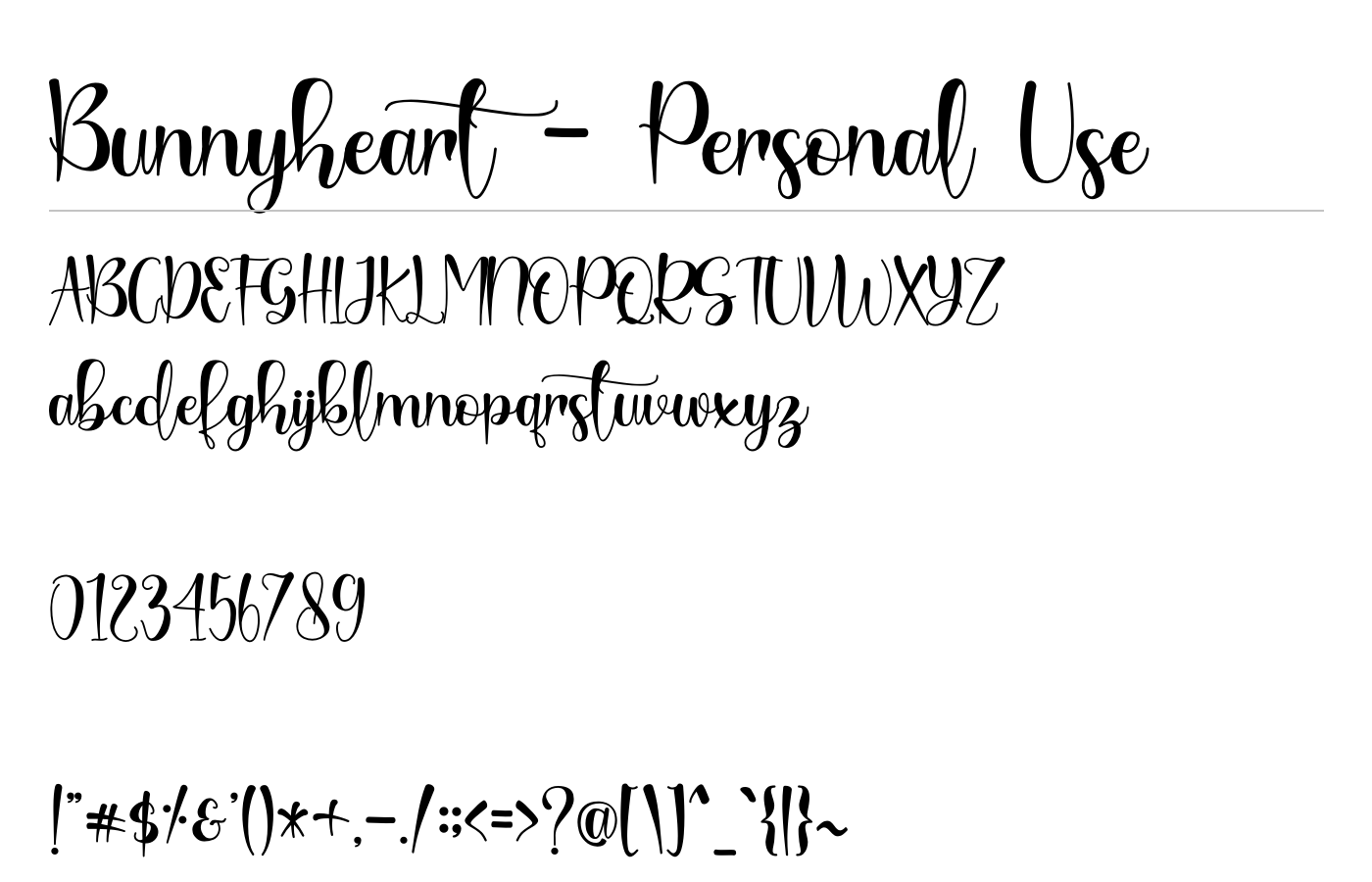
Bunnyheart is a playful and elegant script font with a hand-lettered feel, featuring smooth, flowing strokes and charming decorative swirls. Its slender, tall letterforms with high contrast and unique flourishes make it perfect for personal, creative projects like invitations, branding, and social media graphics. This font adds a whimsical yet sophisticated touch, ideal for designs that want to convey warmth and personality.
Bunnyheart - Personal Use Font
About Bunnyheart - Personal Use Font
| Designer | Ahmad Afandi |
| Trademark | Letterafa |